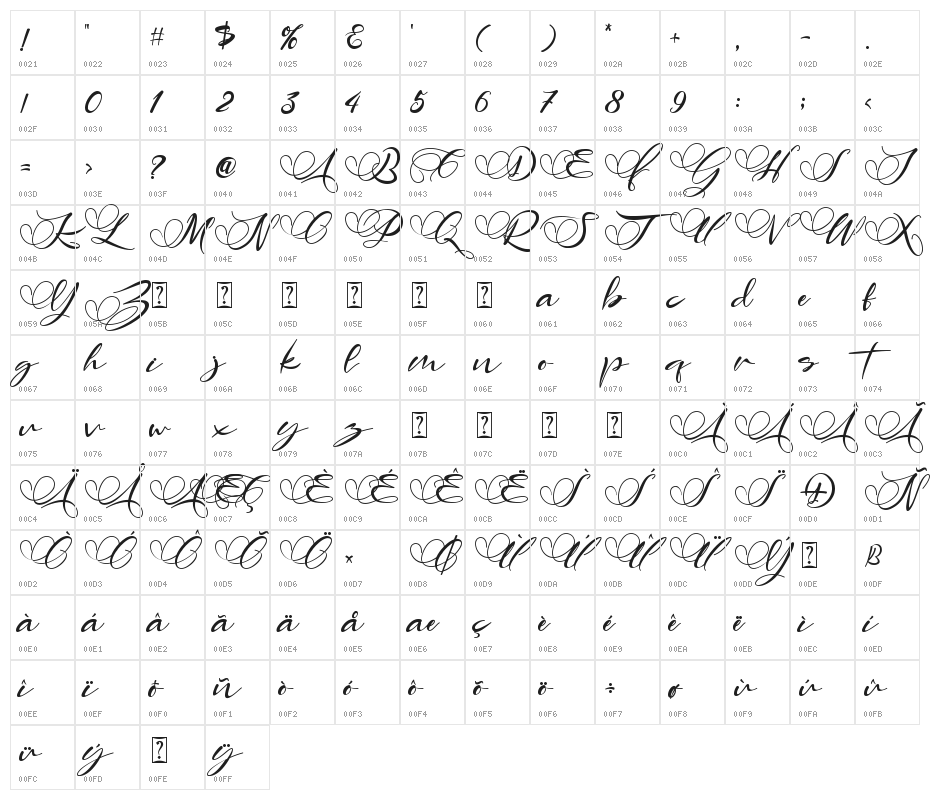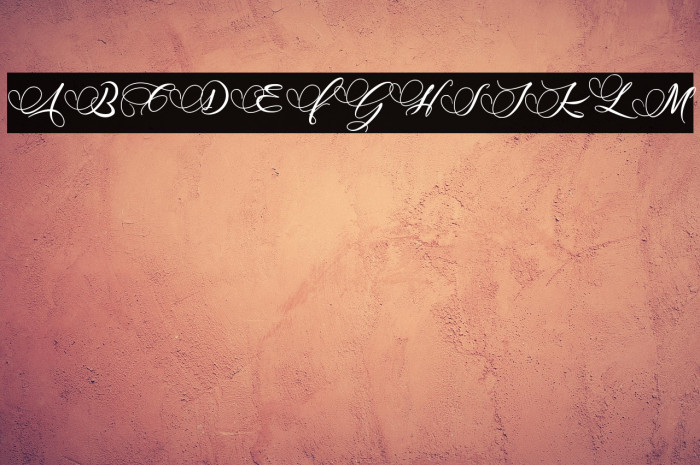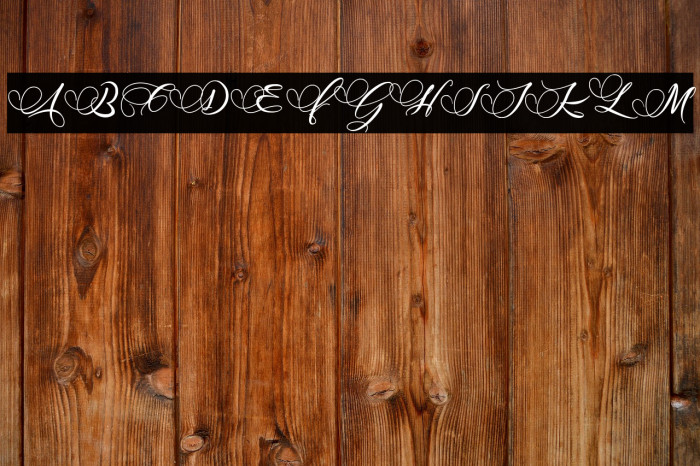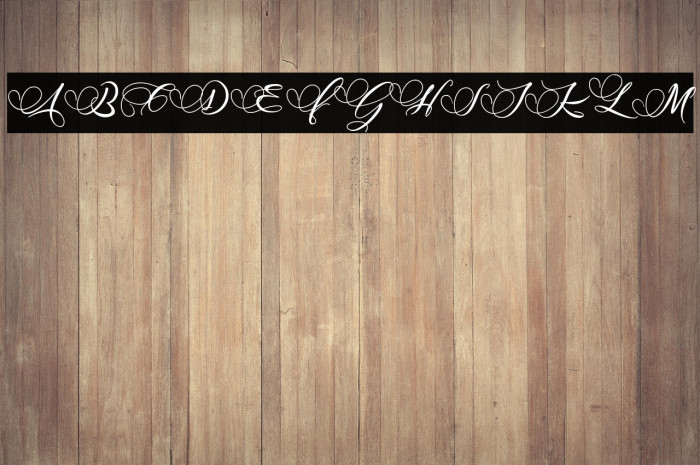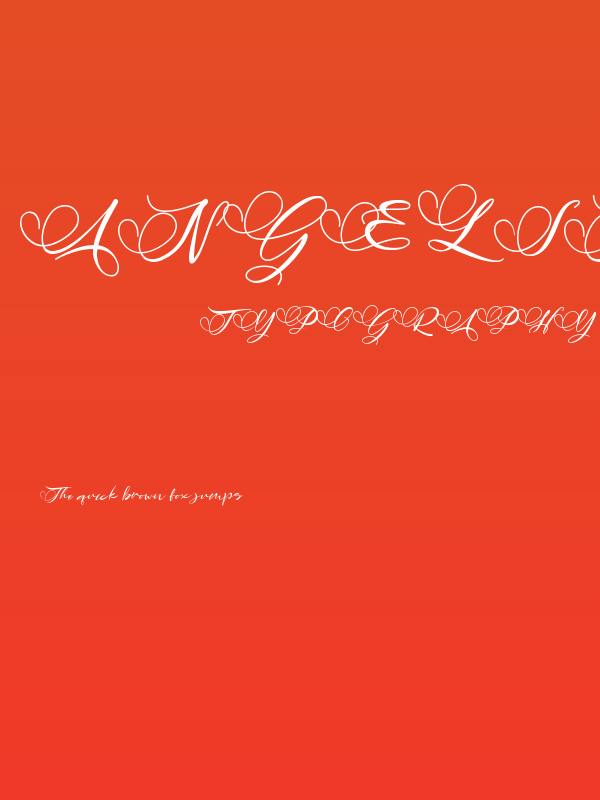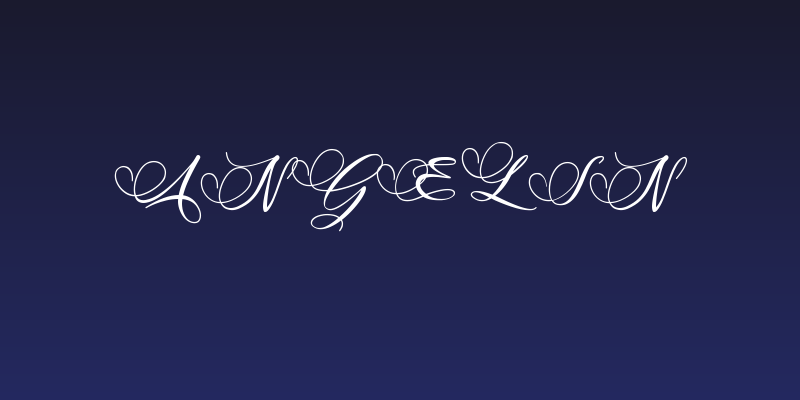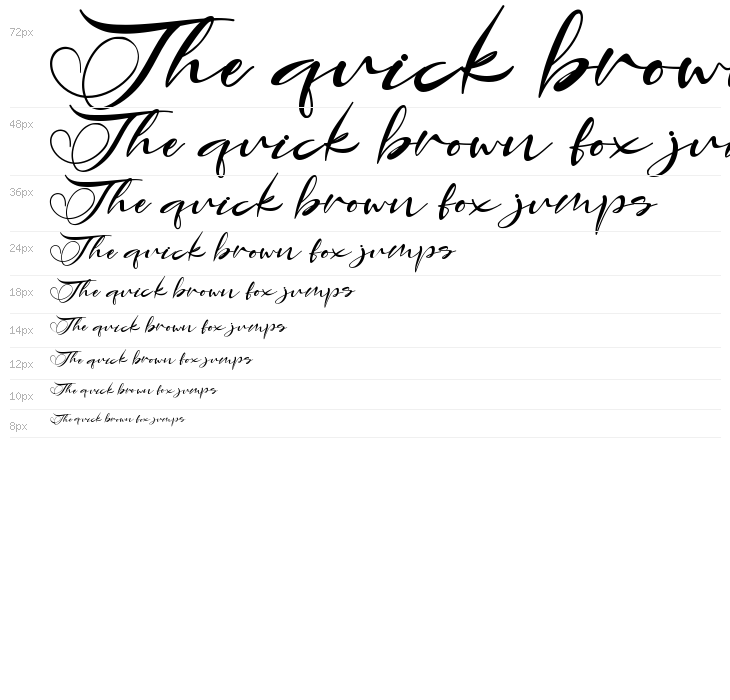
Angelin Font
Angelin Description
This font showcases an elegant and flowing script style, characterized by its intricate and decorative uppercase letters that feature elaborate loops and swirls. The lowercase letters maintain a smooth, cursive appearance with a modern flair, offering a harmonious blend of traditional calligraphy and contemporary design. The numerals are bold and clear, ensuring readability while maintaining the overall aesthetic. Special characters are thoughtfully designed to complement the script style, adding versatility to the font. This font exudes sophistication and is perfect for projects that require a touch of elegance and artistic expression.